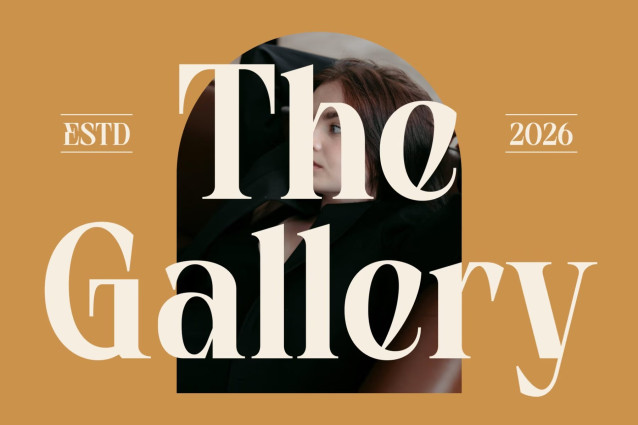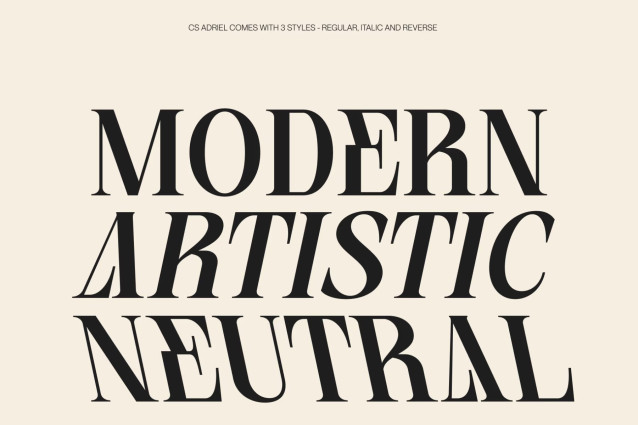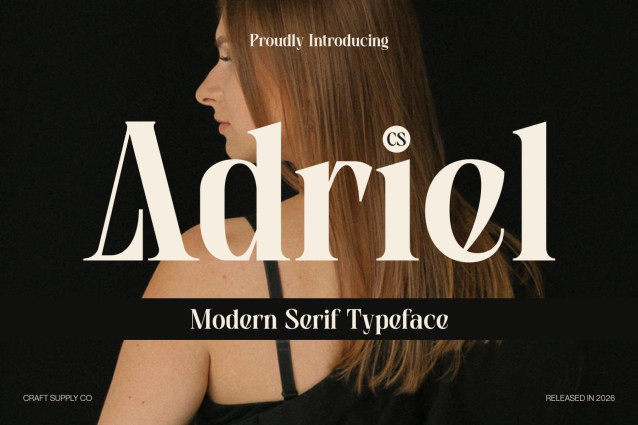
CS Adriel – Modern Serif Font
CS Adriel – Modern Serif with Bold Contemporary Confidence
Modern Serif with Fresh Personality
This is a modern serif font designed to bring a fresh and confident voice to contemporary typography. With its bold lines and refined details, this typeface offers a strong presence while maintaining a polished and elegant feel. It is crafted for designers who want typography that communicates clarity, style, and personality.
Bold Structure with Clear Readability
The sturdy strokes and balanced proportions create a powerful visual impact without sacrificing legibility. Each letterform is carefully shaped to remain crisp and readable across both digital and print media. This thoughtful construction ensures the font performs beautifully in headlines, branding, and editorial layouts.
Contemporary Style for Personal Branding
This font shines in projects that emphasize modern identity and self-expression. Its bold yet refined character helps create memorable brand visuals while maintaining a professional tone. The detailed lines add depth and personality, making the typeface feel distinctive and stylish.